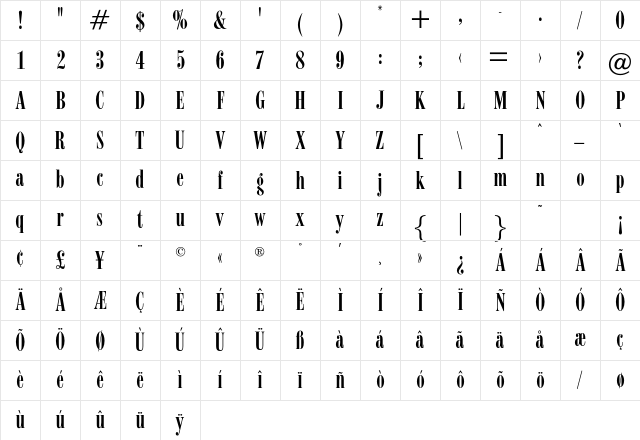
OPTIBodoniCampanileFive Regular
Foundry: Copr. Castcraft Software, Inc
Design Context for OPTIBodoniCampanileFive
OPTIBodoniCampanileFive is a composed and adaptable typeface that performs quietly and consistently across a wide range of design contexts.
Who designed the OPTIBodoniCampanileFive Regular font?